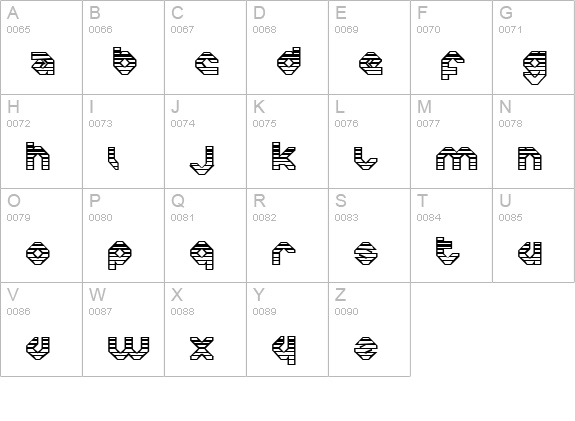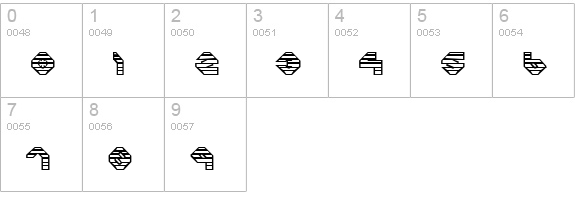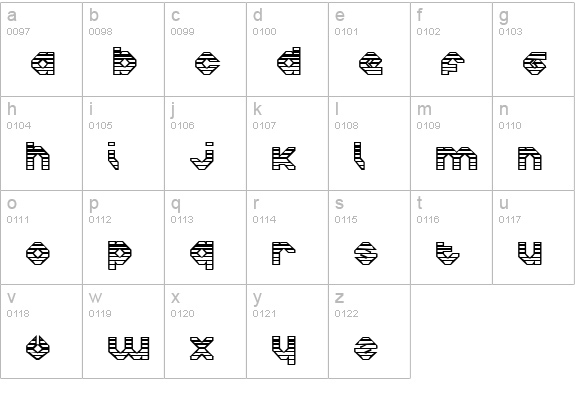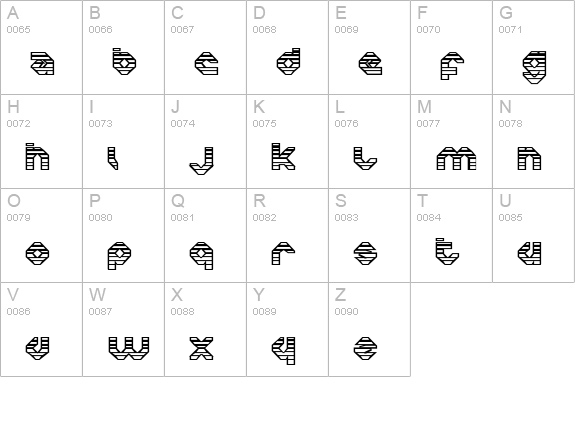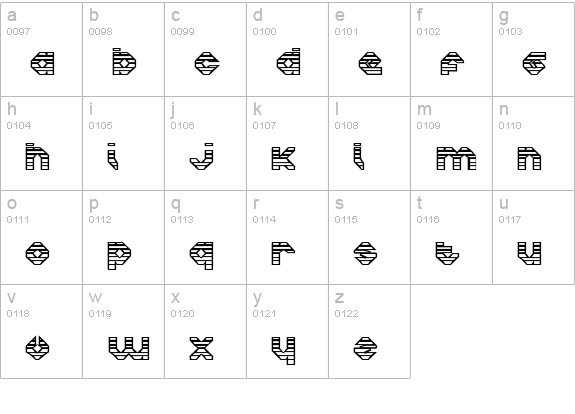
Introducing Charlie's Angles OutGradient font, a dynamic and eye-catching typeface that exudes energy and modernity. This unique font features sharp angles and a gradient effect that adds a touch of sophistication to any design project. Perfect for headlines, posters, branding, and more, Charlie's Angles OutGradient font is sure to make a bold statement. What's even better is that this striking font is available for free download at FontsMarket.com! Don't miss out on the opportunity to add this versatile and stylish font to your collection. Whether you're a designer looking to elevate your projects or a creative individual seeking a fresh and contemporary font, Charlie's Angles OutGradient font is the perfect choice. Download it today and unleash your creativity!